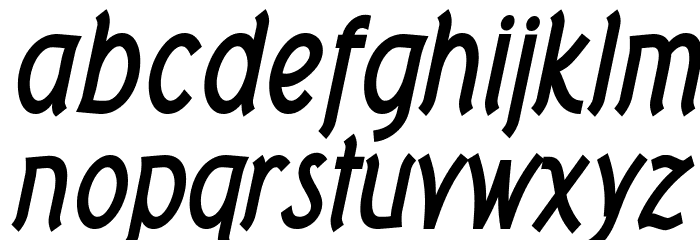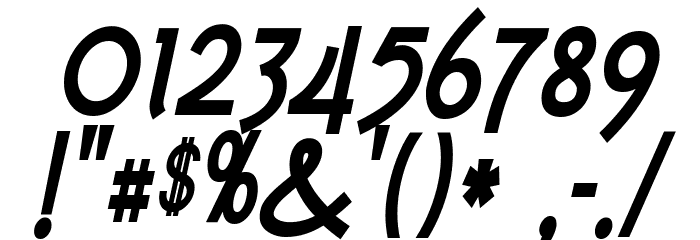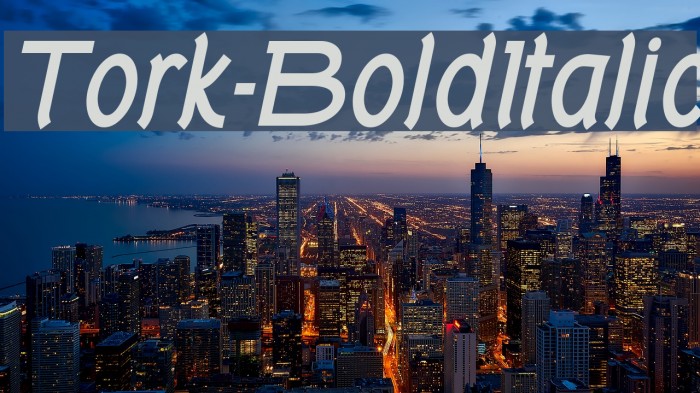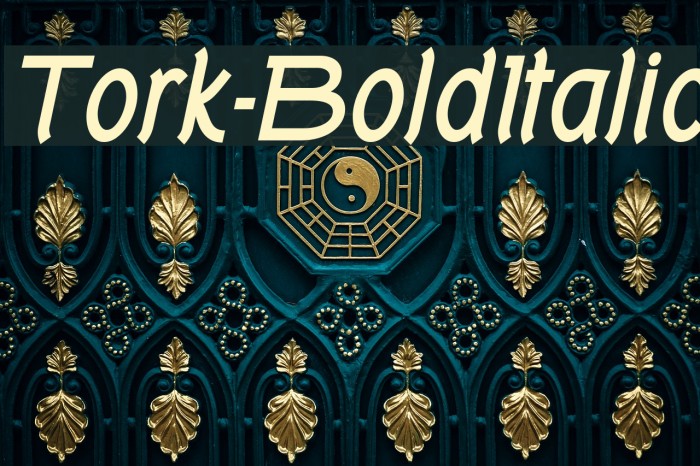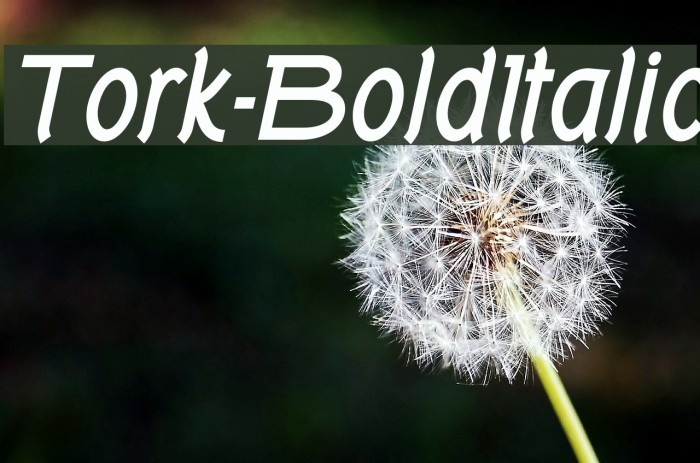
Tork-BoldItalic Font
This font exhibits a dynamic and energetic style with its bold and italicized characters. The uppercase and lowercase letters are designed with a forward-leaning slant, giving a sense of motion and urgency. The strokes are thick and consistent, providing a strong visual impact. The numbers and special characters maintain the same boldness and slant, ensuring uniformity across all glyphs. The overall appearance is modern and assertive, making it suitable for attention-grabbing designs.
A bold, italicized font with a dynamic, forward-leaning style.
- Proposed Projects: Ideal for sports branding, dynamic posters, and modern advertising campaigns.